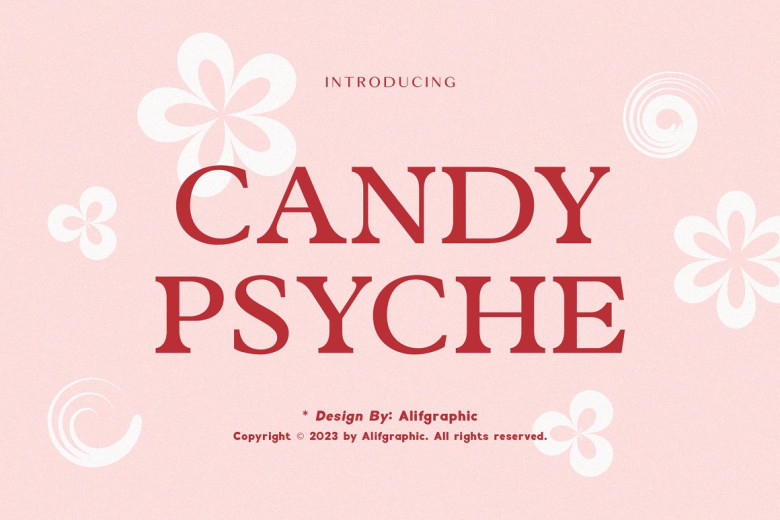
Candy Psyche Font
Candy Psyche Serif Font is now available! Candy Psyche is an elegant modern serif typeface perfect for logos, websites magazines and social media posts – as the fonts work together seamlessly in creating designs! Looking to add some class, fashion modernity chicness into your designs then this font might just be what’s needed!
Candy Psyche Serif Font